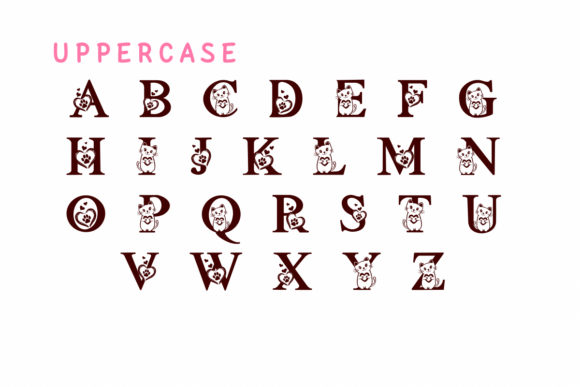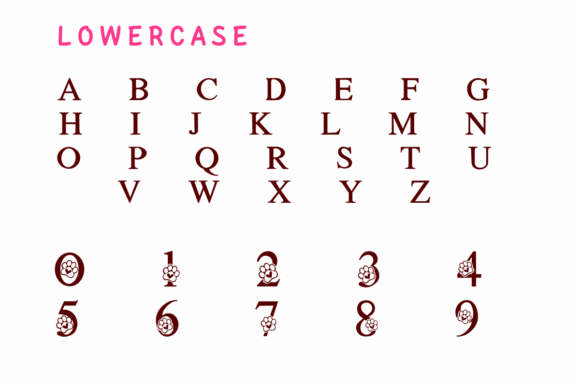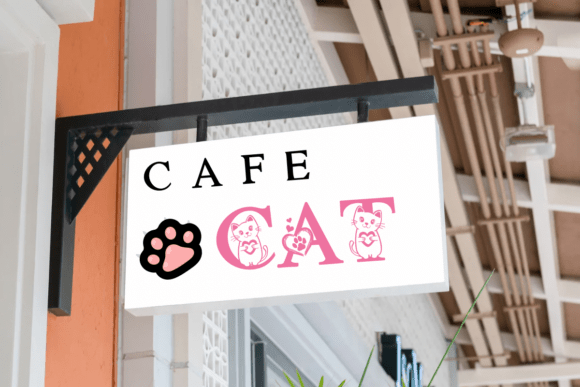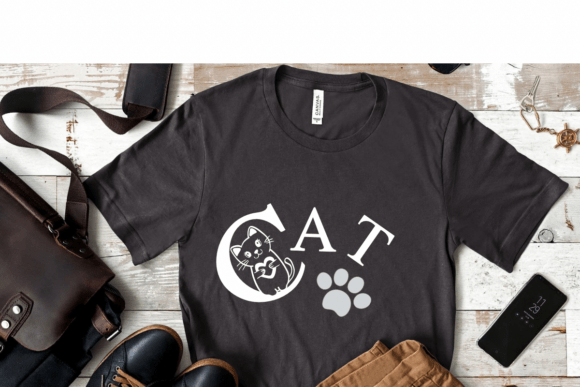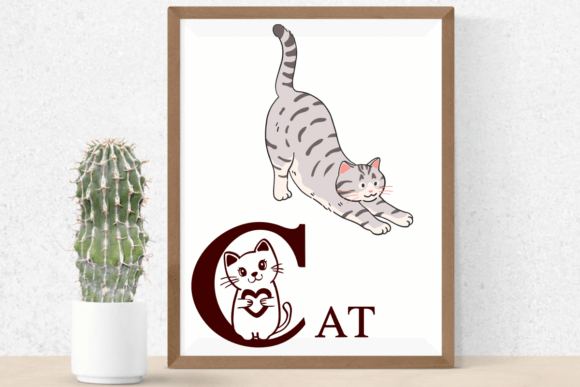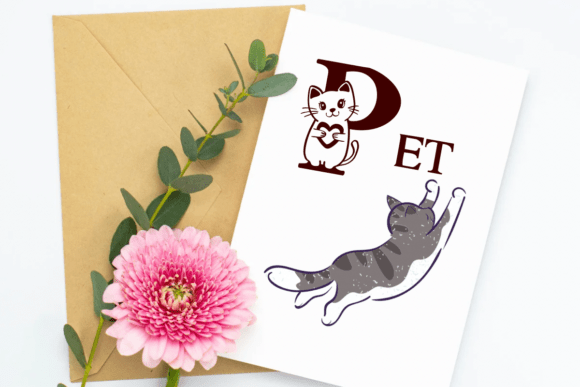
Introduction to Heart Cat Font
Have you ever been in the midst of a creative project, brainstorming ideas and pouring your heart and soul into every detail, only to realize that the perfect font is missing? That’s where the Heart Cat Font comes in – a delightful and whimsical decorative font that can add a touch of magic to any design. This charming font is perfect for adding a personal touch to your work, whether it’s a handmade card, a social media post, or a custom illustration.
Key Features of Heart Cat Font
- Includes a wide range of characters, including uppercase and lowercase letters, numbers, and punctuation marks
- Designed with a playful and whimsical feel, ideal for children’s books, greeting cards, and other fun projects
Honest Review: Heart Cat Font
I recently had the chance to work with the Heart Cat Font, and I must say it’s a delightful addition to any creative project. This font is perfect for designers looking for a unique and playful touch.
- The Heart Cat Font is incredibly versatile and can be used in a variety of designs, from children’s books to social media graphics.
- The font may not be suitable for formal or professional designs due to its playful and whimsical nature.
Overall, I’m impressed with the Heart Cat Font. It’s a great design resource for creative projects and a wonderful addition to any designer’s toolkit. If you’re looking for a fun and quirky font to spice up your designs, I highly recommend giving it a try.
Heart Cat Font
Tips for Getting the Most Out of Heart Cat Font
For best results, use the Heart Cat Font on a high-quality design project with a transparent background. This will help your design stand out and create a unique visual effect.
The Heart Cat Font is perfect for creative projects like invitations, greeting cards, and social media graphics. It’s also great for branding and marketing materials, like logos and business cards.